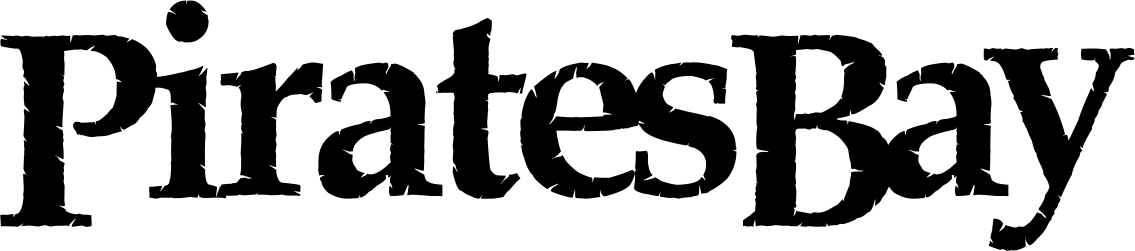
PiratesBay Font
PiratesBay font is inspired by pirates who adventure in deep-sea. This display font with characters that look like torn cloth is exactly like the pirate exploration and themes. This playful pirate font has both uppercase and lowercase letters.
In addition, for designing summer flyers, animation titles, and movie posters, we recommend creating music covers with this adventure and bay font.
PiratesBay Font!